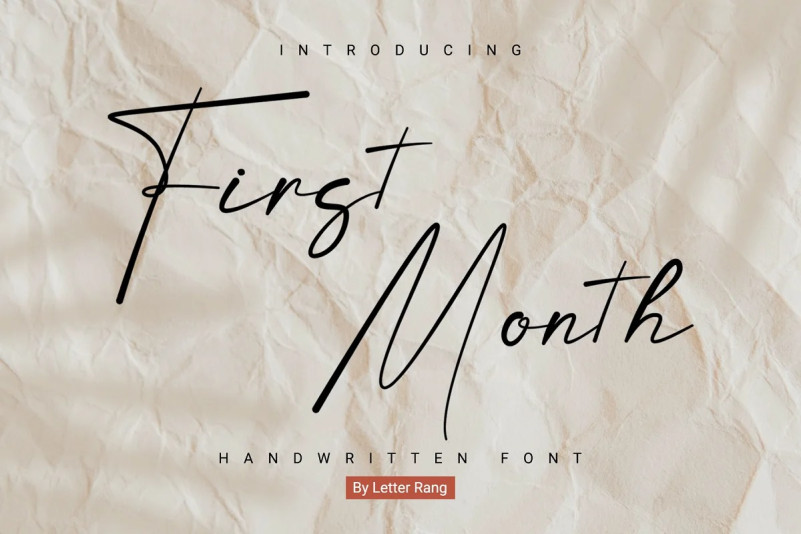
First Month Font
First Month Font is a modern style pen style font. This font is perfect for branding, art notes, invitation cards, wedding cards, greeting cards and for quotes.